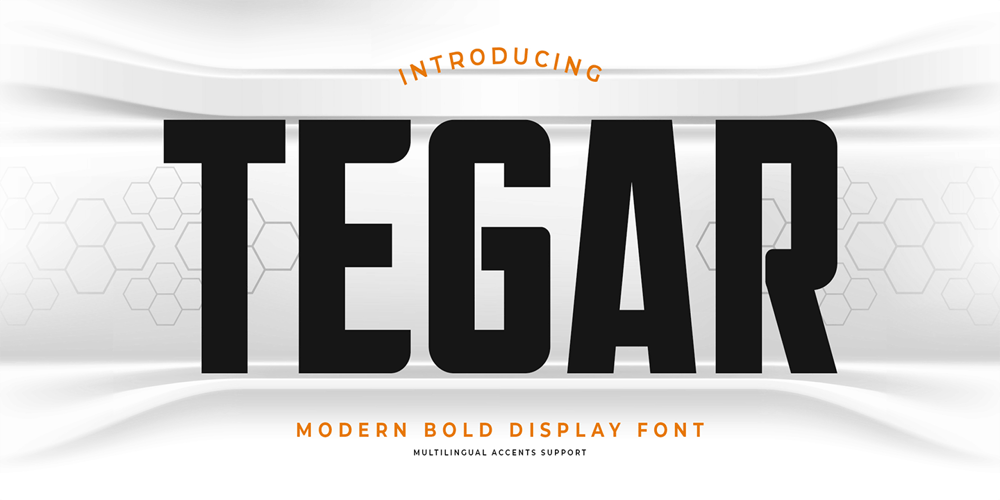
Tegar Font Family was designed by Abdul Malik Wisnu, Anang Fibriyanto and published by Gassstype. Tegar contains 1 styles and family package options. Hello Everyone, introduce our new product Font TEGAR This Is Modern Bold Display Font.This is a Textured Natural Style and classy style with a clear style and dramatic movement.This font TEGAR is great for your next creative project such as logos, printed quotes, invitations, cards, product